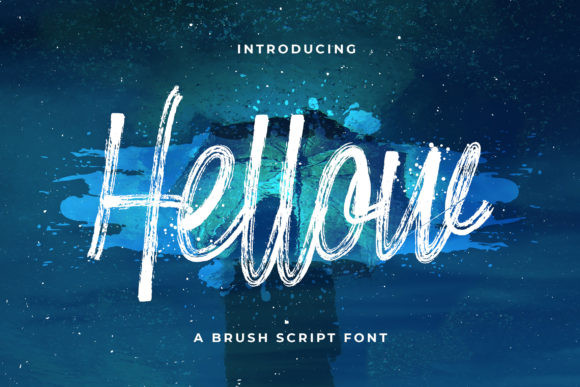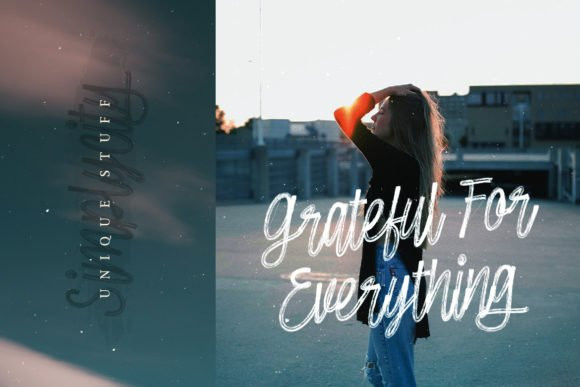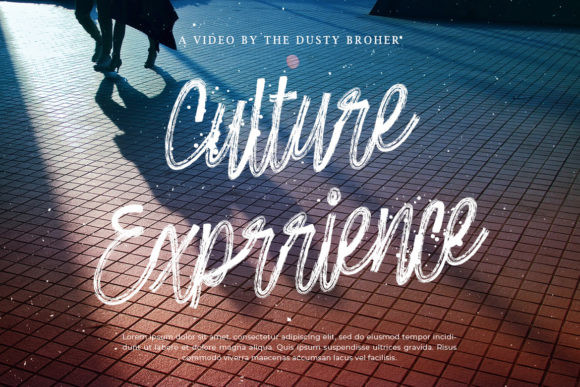
Hellow Font
Hellow is a cool and brushed handwritten font. It can easily be matched to an incredibly large set of projects, so add it to your creative ideas and notice how it makes them stand out!